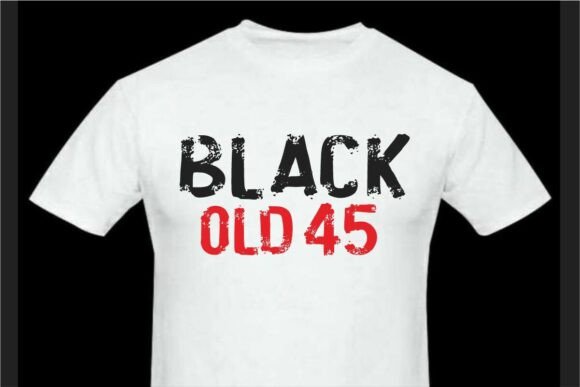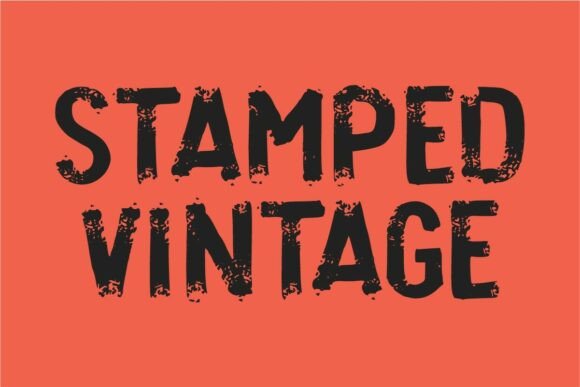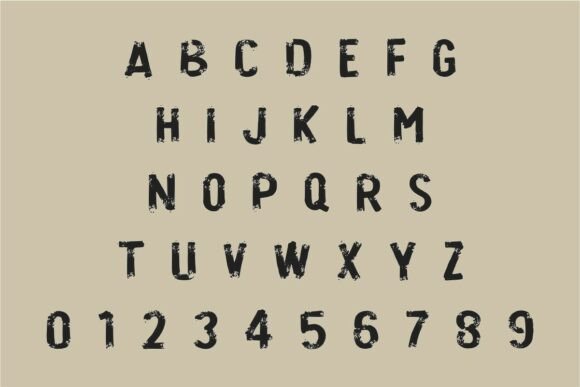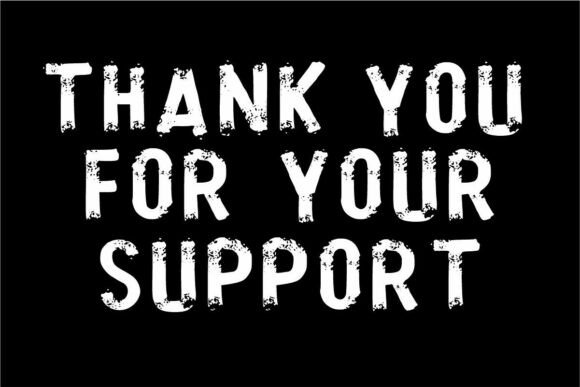
The Power of a Well-Placed Stamp: Unleashing the Raw Energy of Black Stamp Font
Have you ever stood in a dusty vintage shop, running your fingers over the rough, worn textures of old stamps and labels? The tactile experience is almost palpable, evoking a sense of history and authenticity that’s hard to replicate with modern design tools. But what if you could capture that same raw, industrial power in your typography?
Enter the Black Stamp Font, a game-changing display font that distills the essence of worn, vintage textures into a single, commanding design. With its rugged, high-impact sans serif look, this font is perfect for titles that need to exude authority and history – from vintage-style ads to movie title sequences. By layering it over a textured background or using it in high-contrast black-and-white layouts, designers can unlock a wealth of creative possibilities with the Black Stamp Font.
Black Stamp Font Key Features
- Unique Characteristic: The Black Stamp Font features a distressed, vintage aesthetic with a unique blend of bold and elegant strokes, giving it a distinctive look.
Black Stamp Font Review
As a designer, I’ve had the chance to work with Black Stamp Font, and I’ve got to say, it’s got some great qualities that make it a solid choice for certain projects.
- Unique aesthetic: Black Stamp Font has a distinctive, hand-stamped look that can add a touch of personality to your designs.
- High-quality rasterization: The font is well-rendered, with clear lines and smooth curves that make it easy to read.
- Great for bold typography: Black Stamp Font is perfect for making a statement, with its bold, dramatic lines that demand attention.
- Limited font sizes: The font can become somewhat illegible when resized, especially at smaller sizes.
- Limited language support: Black Stamp Font may not be the best choice for multilingual projects, as it’s not optimized for certain languages.
- Not suitable for small text: The font’s bold lines can make it difficult to read when used for small text, such as body copy.
Overall, I think Black Stamp Font is a solid choice for designers looking to add a touch of drama and personality to their projects. Just be mindful of its limitations, and use it wisely.
Tips for Getting the Most Out of Black Stamp Font
Black Stamp Font is a versatile font that works well in a variety of contexts.
Use it for titles, headings, and other emphasis points to add a touch of sophistication and elegance.
Pair it with bold colors and contrasting backgrounds to create a striking visual effect.
Black Stamp Font is ideal for:
Celebratory and festive designs, such as invitations and party decorations.
Formal and professional presentations, such as business proposals and reports.
Designs that require a sense of sophistication and elegance, such as luxury branding and high-end marketing materials.
Alternatives to Black Stamp Font
Great Vibes is a beautiful, modern script font perfect for creative projects. It features elegant, flowing lines and a sophisticated feel. Use it for invitations, posters, and other promotional materials where you want to convey a sense of luxury and style. Compared to Black Stamp Font, Great Vibes has a more refined and polished look, making it ideal for high-end designs.
Pacifico is a popular, elegant script font with a relaxed, beachy vibe. It’s perfect for projects that require a casual, yet sophisticated look. Use it for menus, labels, and other materials where you want to convey a sense of warmth and approachability. Compared to Black Stamp Font, Pacifico has a more laid-back feel, making it ideal for projects that require a relaxed tone.